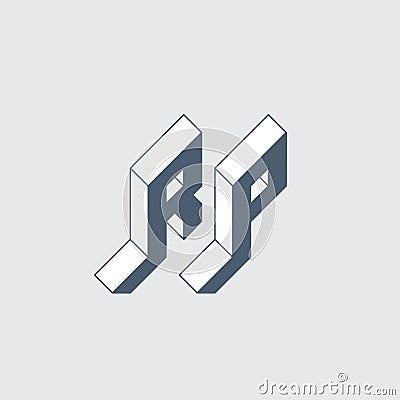
R And P - Monogram Or Logotype. Isometric 3d Font For Design. Outline Fonts. Three-dimension Letters. RP - 2-letter Code Cartoon Vector
R and P - Monogram or logotype. Isometric 3d font for design. Outline fonts. Three-dimension letters. RP - 2-letter code.